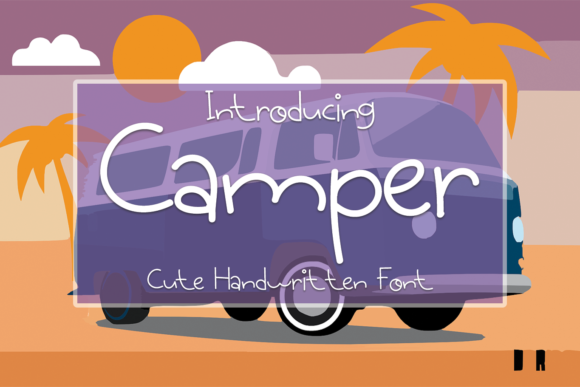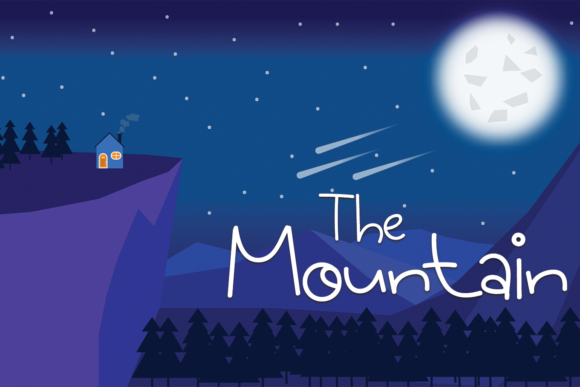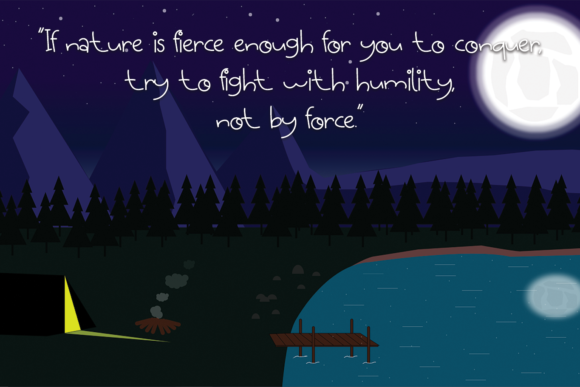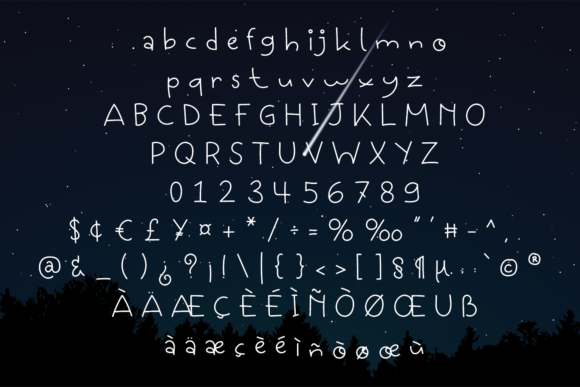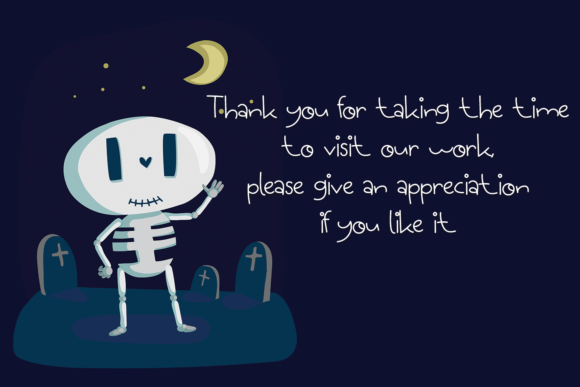
Camper Font
About Camper Font
Camper is a sweet, simple lettered and adaptable handwritten font. Its cute and full of life style makes this font a wonderful choice for brightening up your designs.